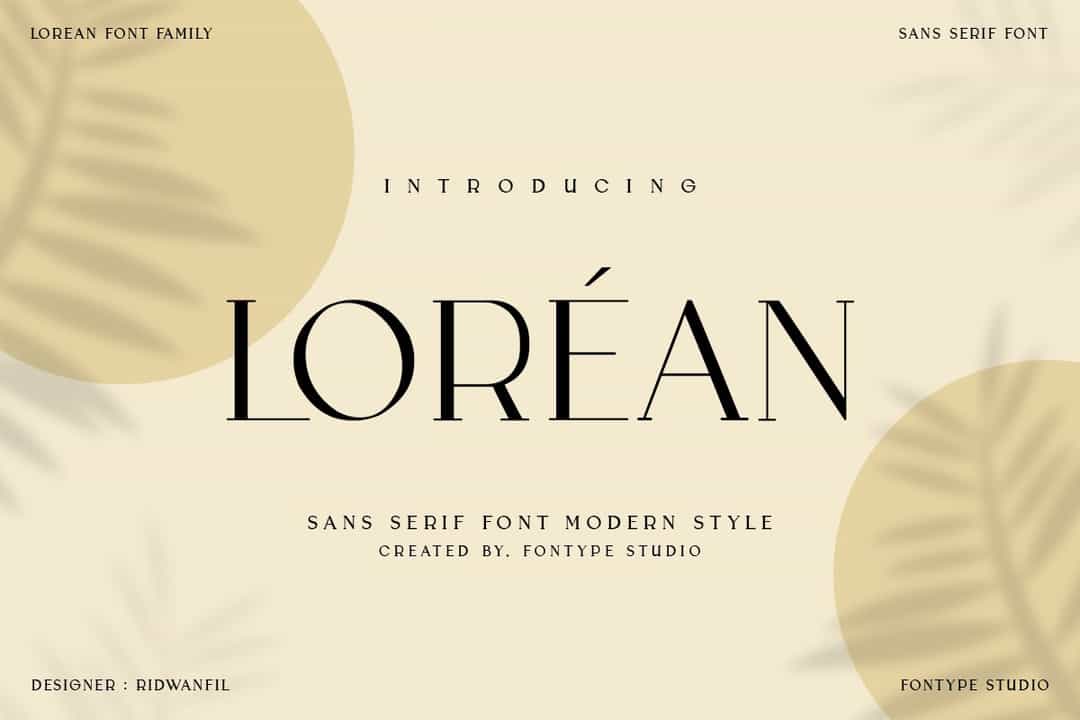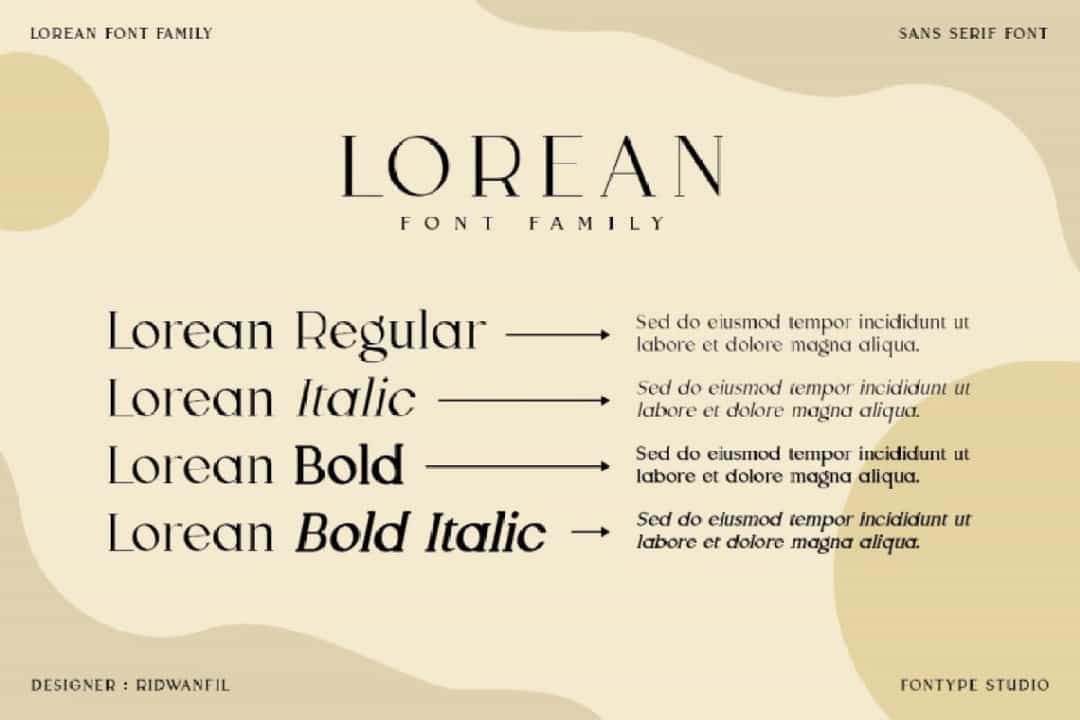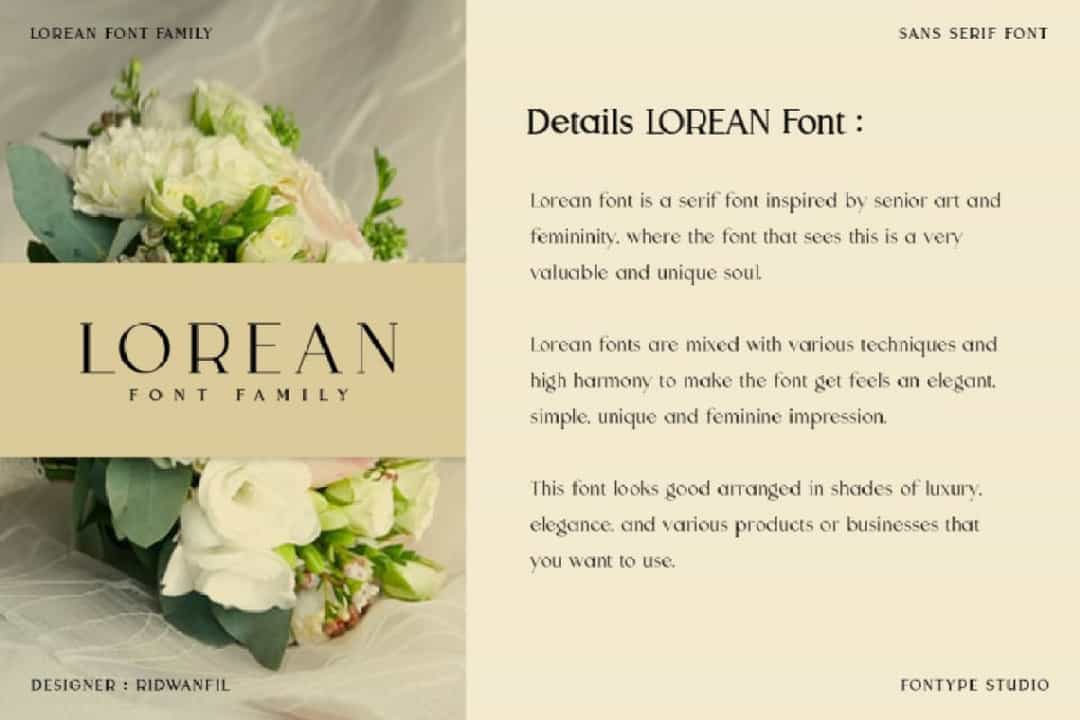
Lorean is a serif typeface inspired by seniority and femininity, creating a special font with its own individual voice. Lorean fonts combine different styles and techniques for an exquisite, minimalist, feminine aesthetic.